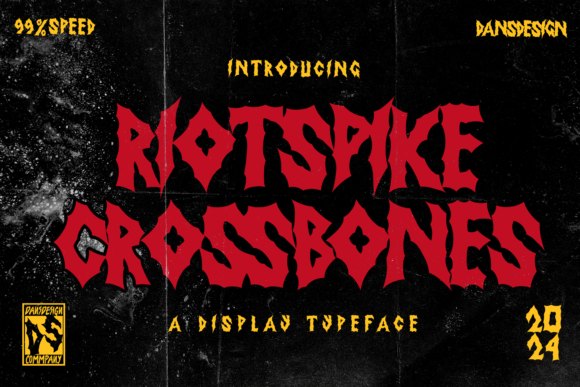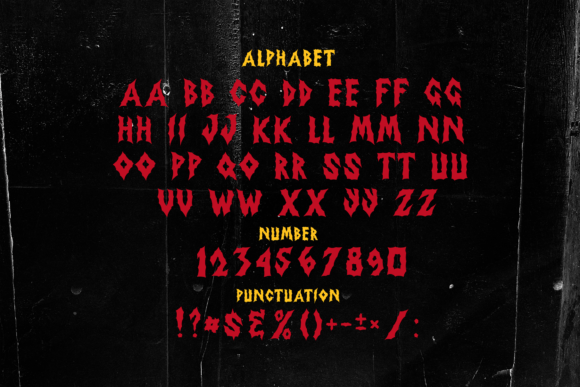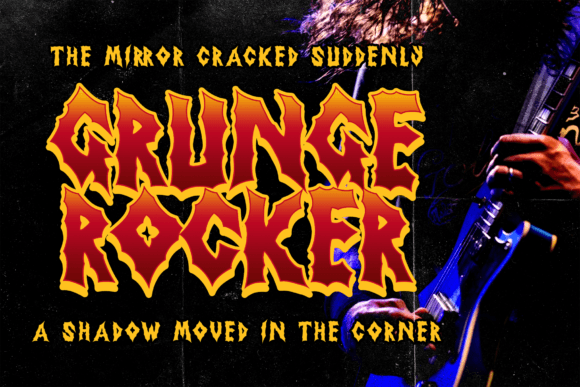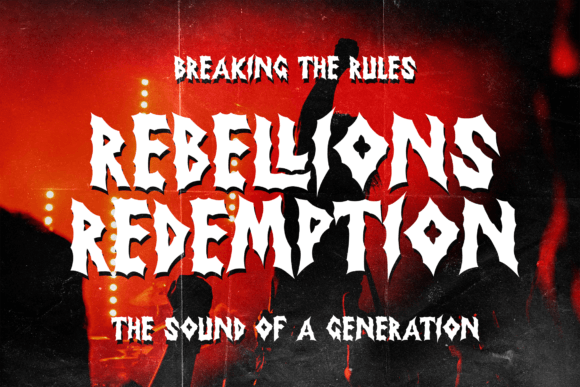
Riotspike Crossbones Font
About the Riotspike Crossbones Font
Step up your design game with Riotspike Crossbones Font, a font that exudes confidence and style. Riotspike Crossbones is a bold and edgy street art-inspired font with a Y2K vibe. It features sharp, angular blackletter-style letters, perfect for giving a rebellious, urban feel to designs. This font combines graffiti and gothic elements, making it ideal for projects that need a strong and striking look.
This font excels in headlines, posters, and short impactful branding elements where its strong personality can shine. It’s perfect for projects targeting a younger demographic with a rebellious spirit, such as streetwear brands, music events, or edgy gaming projects. Avoid using it for body text or lengthy passages; its aggressive forms are illegible at smaller sizes.
Riotspike Crossbones pairs well with clean sans-serif fonts like Futura or Gill Sans for a striking contrast of styles. For a more cohesive look, consider pairing it with a geometric sans-serif like Bebas Neue, which shares a similar modern boldness. Using a simple serif like Garamond as an accent font for smaller text elements could add a touch of unexpected sophistication.
The overall personality is undeniably bold, rebellious, and urban. Its Y2K influences lend it a distinctly modern edge, while its blackletter roots provide a strong historical counterpoint.
Riotspike Crossbones Font Usage Examples
Riotspike Crossbones Font Example